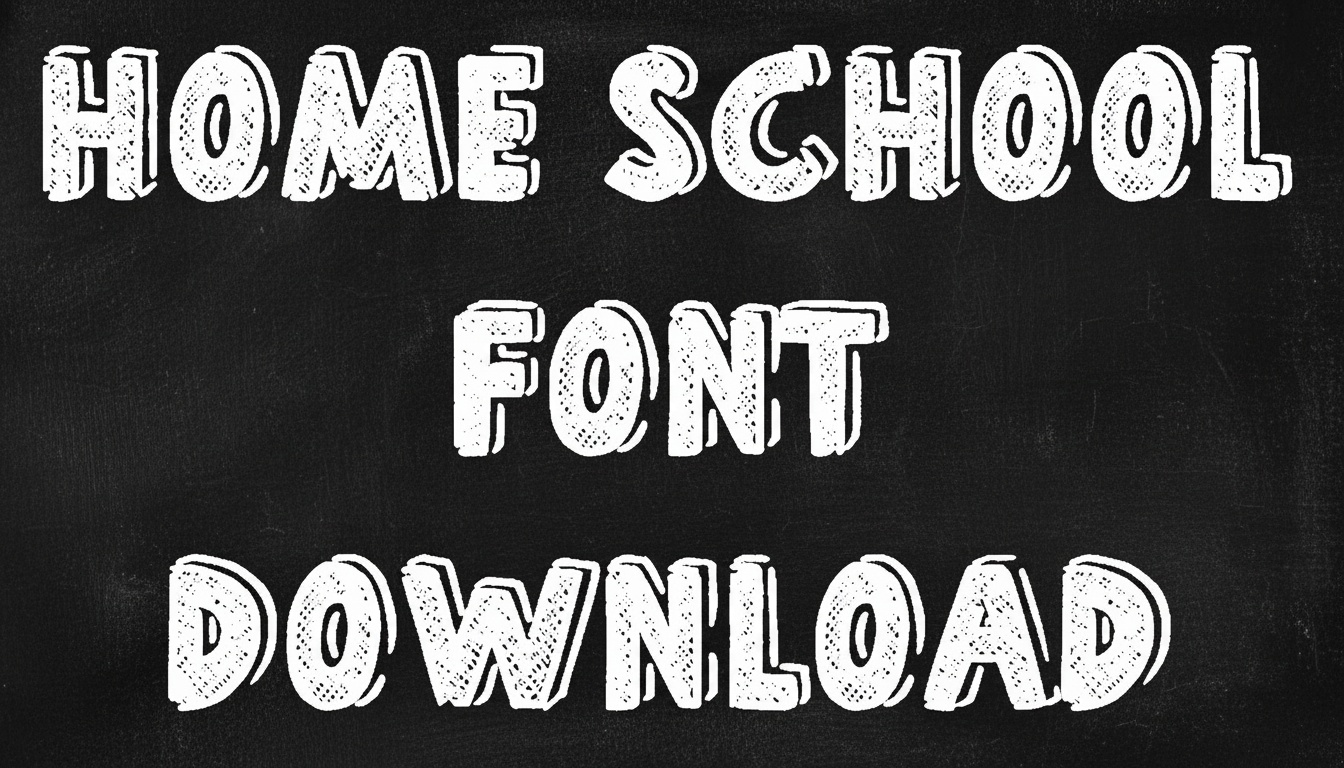
Home School
Home School is a cartoon font designed by Jonathan S. Harris (2015). Its bouncy, rounded letters feel playful, like lettering from a cartoon or a comic book. It's a free download, and you can try it with your own text in the preview above first.
- Designer: Jonathan S. Harris
What You Can Type With Home School
You get every letter from A to Z in both cases and all the numbers from 0 to 9, which means Home School can handle full sentences, dates and prices. Everyday marks like &, !, ? and @ are there too. Thanks to its accented letters, it also works for Spanish, French, German, Portuguese and Italian, not just English.
Where Home School Works Best
Home School is a natural fit for kids' books, birthday invites and fun YouTube thumbnails. The file has no kerning data, so in logos and big titles check pairs like AV, To and Wa and tighten the spacing by hand. Cartoon fonts are great for short, fun lines. If you place it over a busy photo, add a thick outline or a drop shadow so it stays readable.
Who designed Home School font?
Does Home School support accented letters?
Yes. Home School includes the accented letters needed for Spanish, French, German, Portuguese and Italian, so it works for more than just English.